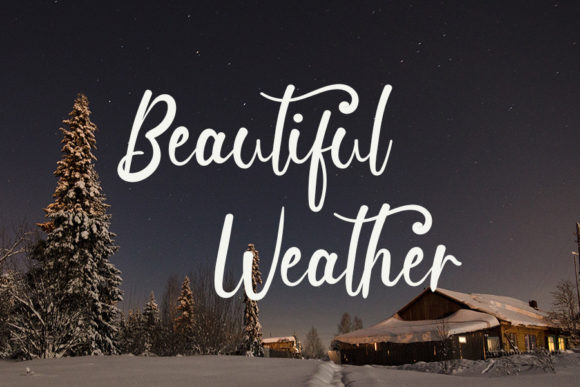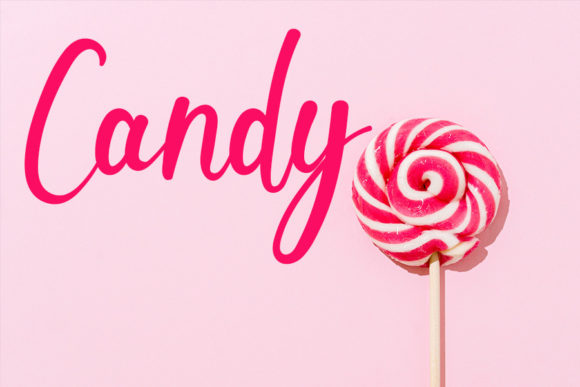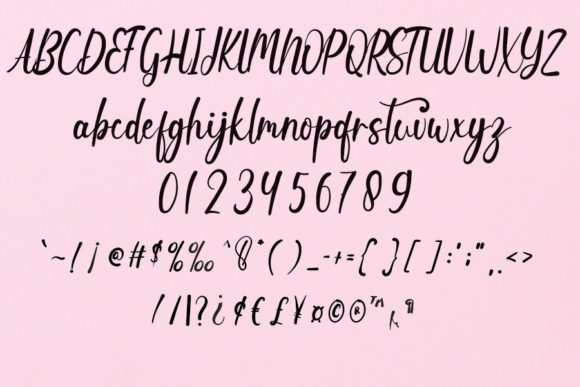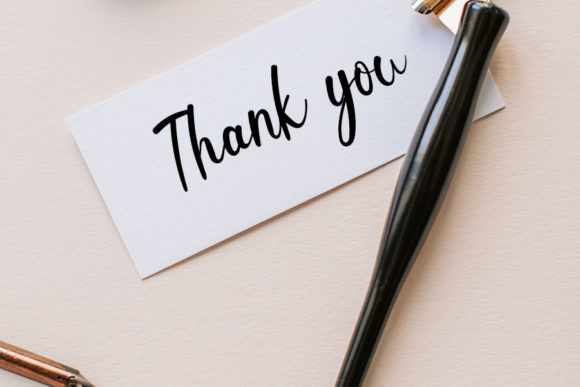
Introducing Cool Place: The Ultimate Modern Handwritten Font
Are you tired of using the same old fonts in your design projects? Look no further! We’re excited to introduce Cool Place, a stunning handwritten font that brings a modern vibe to your creations. Inspired by classic calligraphy, Cool Place is the perfect blend of elegance and playfulness.
The Story Behind Cool Place
Cool Place was designed with one goal in mind: to create a font that’s not too thin and not too thick, but perfectly balanced and varied. The result is a spotless, modern font that’s sure to elevate the beauty of your projects. Whether you’re a designer, crafter, or DIY enthusiast, Cool Place is the perfect addition to your font collection.
What Makes Cool Place So Cool?
So, what sets Cool Place apart from other fonts out there? Here are just a few features that make it a standout:
- Modern Vibe: Cool Place has a fresh, modern feel that’s perfect for designs that need a bit of edge.
- Balanced and Varied: The font’s balanced and varied strokes create a sense of movement and energy.
- Inspired by Classic Calligraphy: Cool Place pays homage to traditional calligraphy, but with a modern twist.
- Spotless Form: The font’s clean and precise form makes it perfect for use in a variety of design applications.
Cool Place is a versatile font that’s perfect for designers and crafters alike. Here are just a few ways you can use Cool Place in your projects:
- Branding and Logo Design: Use Cool Place to create a unique and memorable brand identity.
- Stationery and Invitations: Add a touch of elegance to your stationery and invitations with Cool Place.
- Packaging and Product Design: Use Cool Place to create eye-catching packaging and product designs.
- Digital Design: Cool Place is perfect for use in digital designs, such as social media graphics and website headers.
Why Choose Cool Place?
With so many fonts to choose from, why should you choose Cool Place? Here are just a few reasons:
- Unique and Exclusive: Cool Place is a one-of-a-kind font that’s sure to make your designs stand out.
- Easily Readable: The font’s clear and precise form makes it easy to read, even at small sizes.
- Highly Versatile: Cool Place can be used in a wide range of design applications, from print to digital.